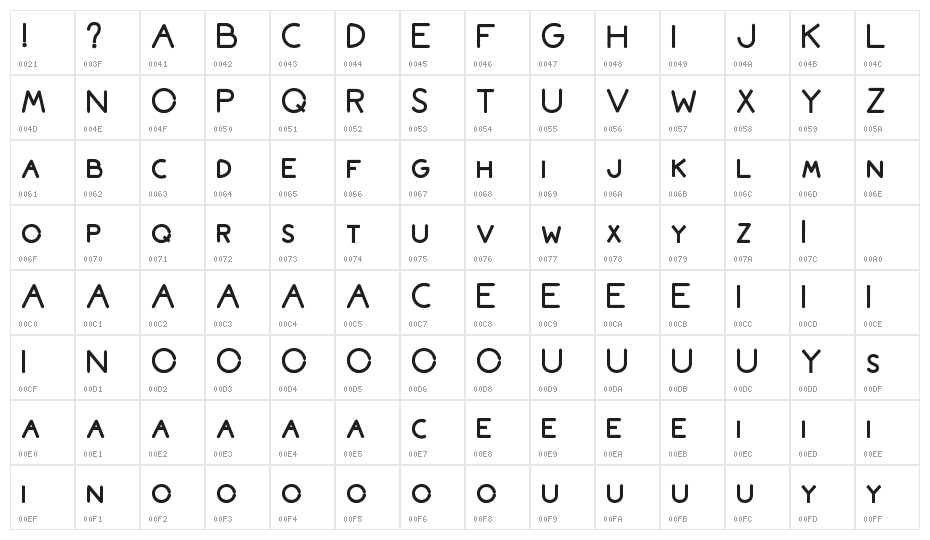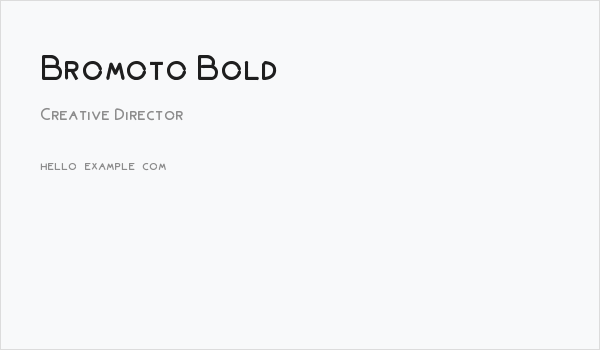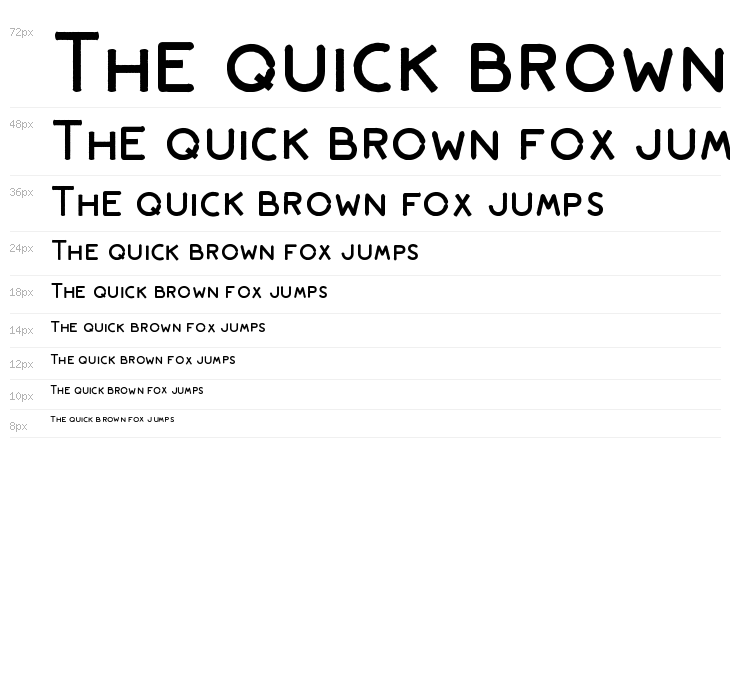
Bromoto Bold Font
Bromoto Bold Description
This font features a bold and modern design with clean, geometric lines and a uniform stroke width. The characters are well-defined, with a consistent height and width that gives a balanced and structured appearance. The circular elements in letters like 'O' and 'Q' are perfectly rounded, adding to the font's contemporary feel. The overall look is sleek and professional, making it suitable for a variety of design applications. The font's boldness ensures high readability, while its modern style makes it versatile for both digital and print media.